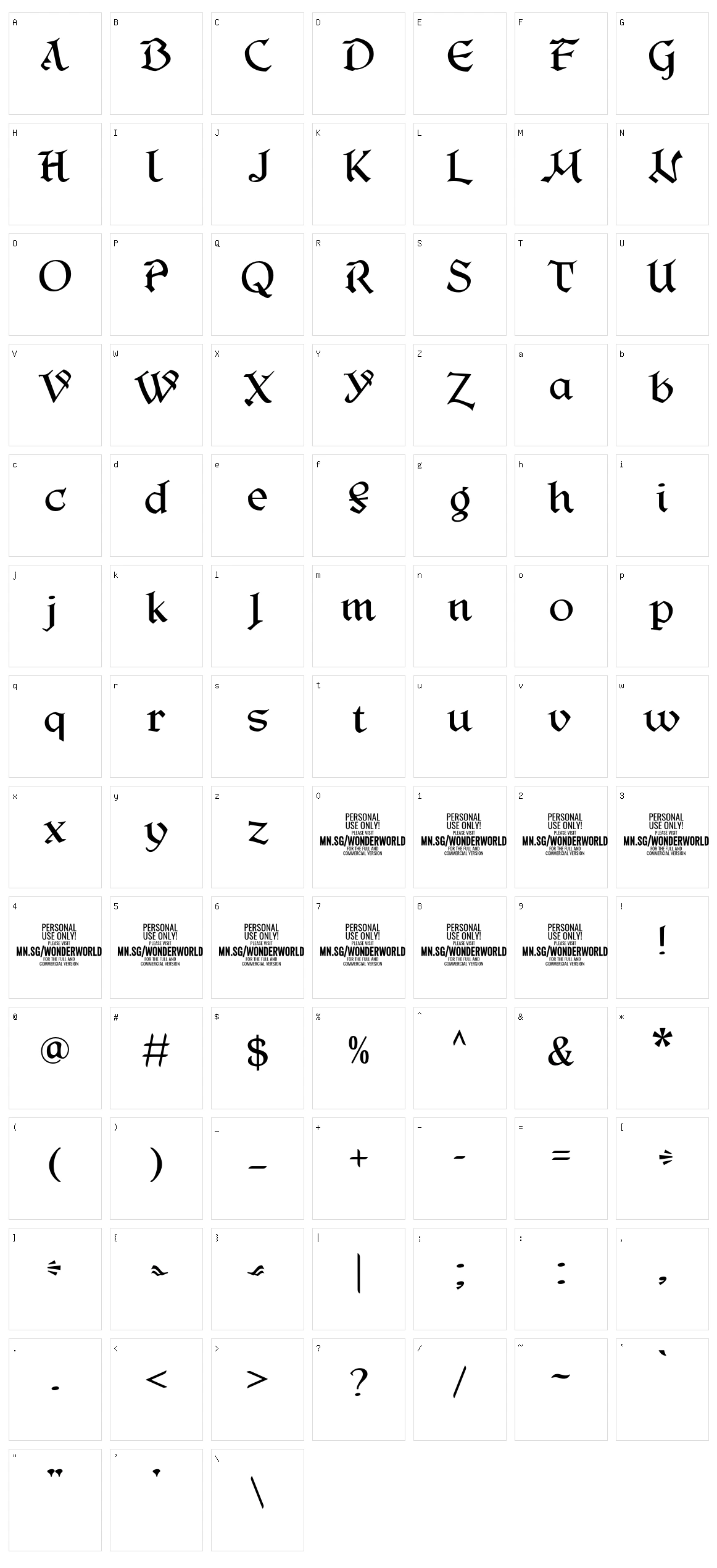
Wonderworld
Category: Various & Gothic
Wonderworld is an antique calligraphy typeface.
This medieval font brings you back to the magic times of stories about knights and kings, with thin fractur letterforms and sharp edges.
Use it for a blackletter logotype or headline to give your work that genuine Middle Ages look.
Use [] or {} to make decorations.
Example: [Lovely]
The Wonderworld family consists of four high-quality fonts:
Regular, Italic, Bold and Bold Italic
The font is built with advanced OpenType functionality and has a guaranteed top-notch quality, containing stylistic and contextual alternates, ligatures and more features; all to give you full control and customizability.
It has extensive lingual support, covering all Latin-based languages, from Northern Europe to South Africa, from America to South-East Asia.
It contains all characters and symbols you'll ever need, including all punctuation and numbers.